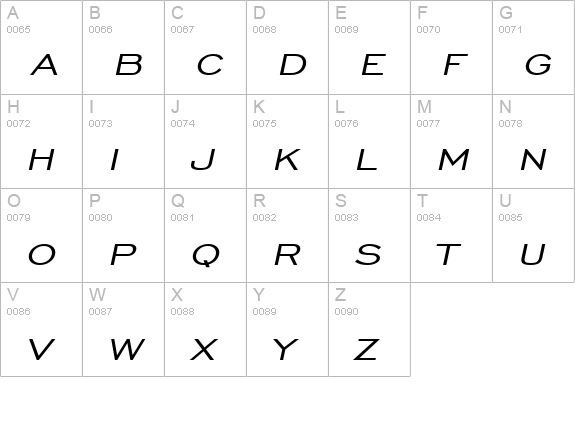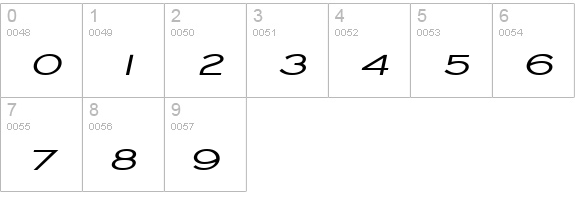
Chisel Wide Italic is a distinctive, extended-width, italic variant in the Chisel typeface family \xE2\x80\x94 well suited to design and typography projects.
The Chisel Wide Italic font is a sleek and modern typeface that exudes sophistication and elegance. Its unique italic design adds a touch of flair to any project, making it perfect for creating eye-catching headlines, logos, and branding materials. With its wide letterforms and sharp chiseled edges, this font commands attention and leaves a lasting impression. Best of all, the Chisel Wide Italic font is available for free download at FontsMarket.com. You can easily access this versatile font and enhance your designs with its bold and dynamic style. Whether you're working on a website, poster, or packaging, the Chisel Wide Italic font is sure to make a statement and elevate your creative projects to the next level. Download it now and unleash your design potential!